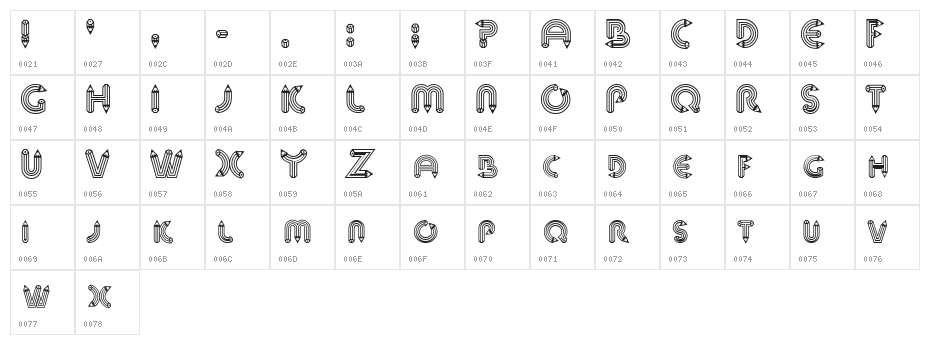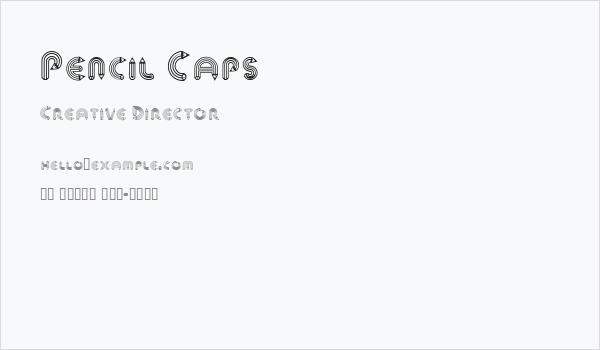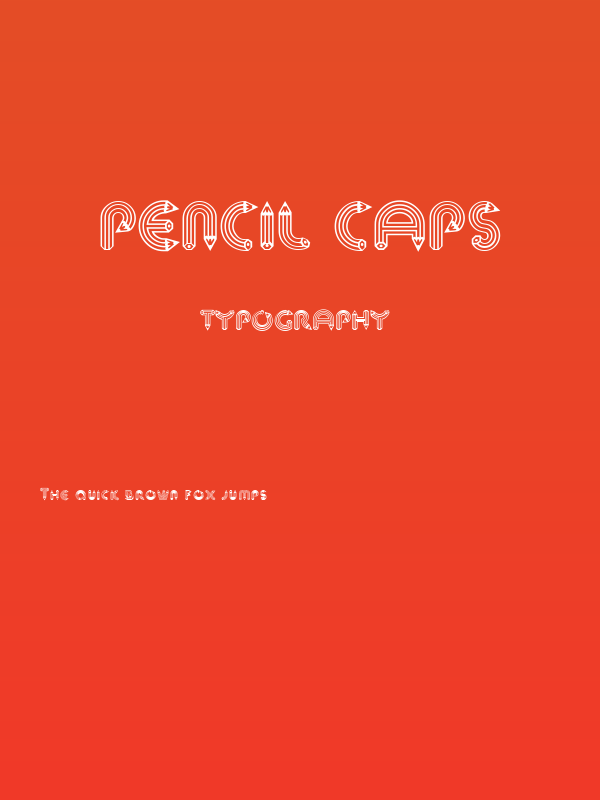
Pencil Caps Font
Pencil Caps Description
This font features a playful and creative design, where each character is stylized to resemble a pencil. The letters are constructed with bold outlines and intricate inner lines that mimic the texture and appearance of a pencil, complete with pointed ends and eraser-like shapes. This unique design gives the font a whimsical and artistic feel, making it stand out in any application. The uppercase and lowercase letters maintain a consistent theme, while the numbers and special characters are cleverly integrated into the pencil motif. The overall look is both decorative and functional, ideal for projects that require a touch of creativity and fun.
Proposed ProjectsIdeal for educational materials, children's book covers, creative posters, and art-themed branding.